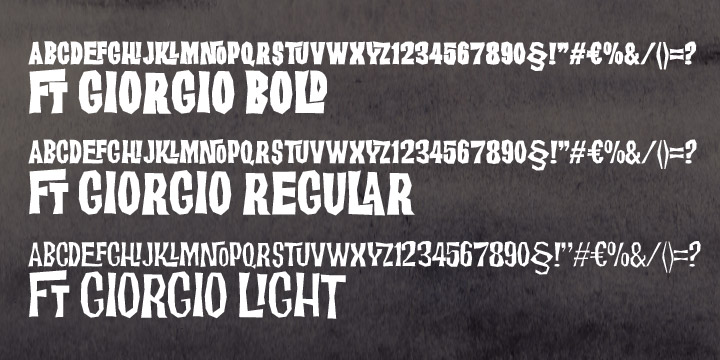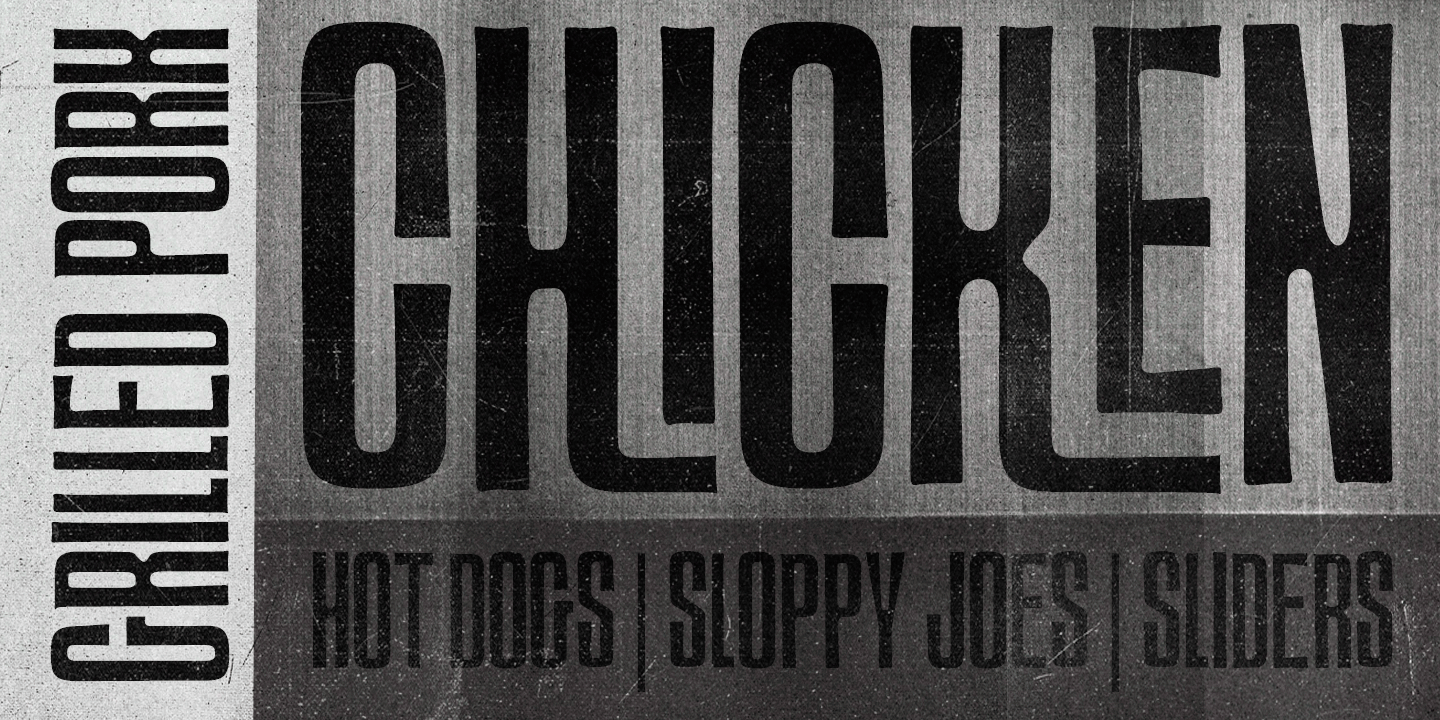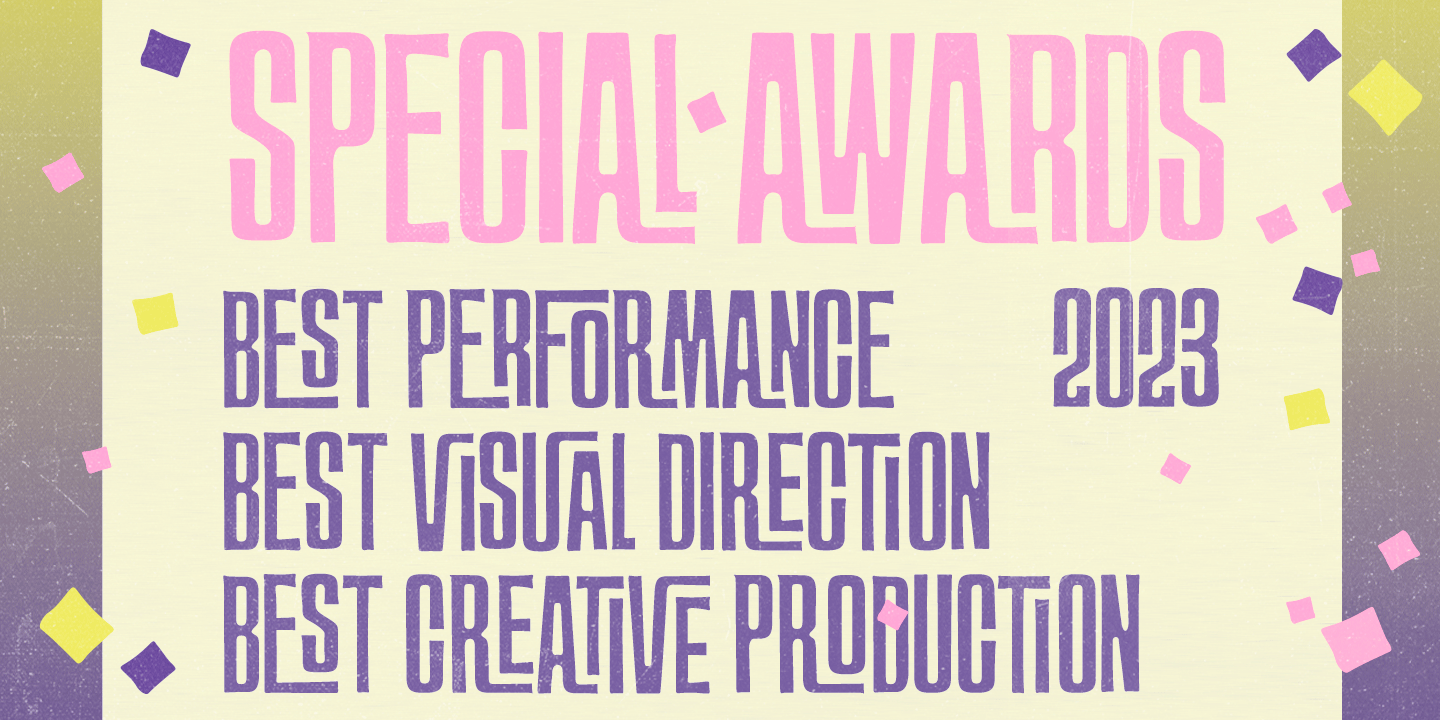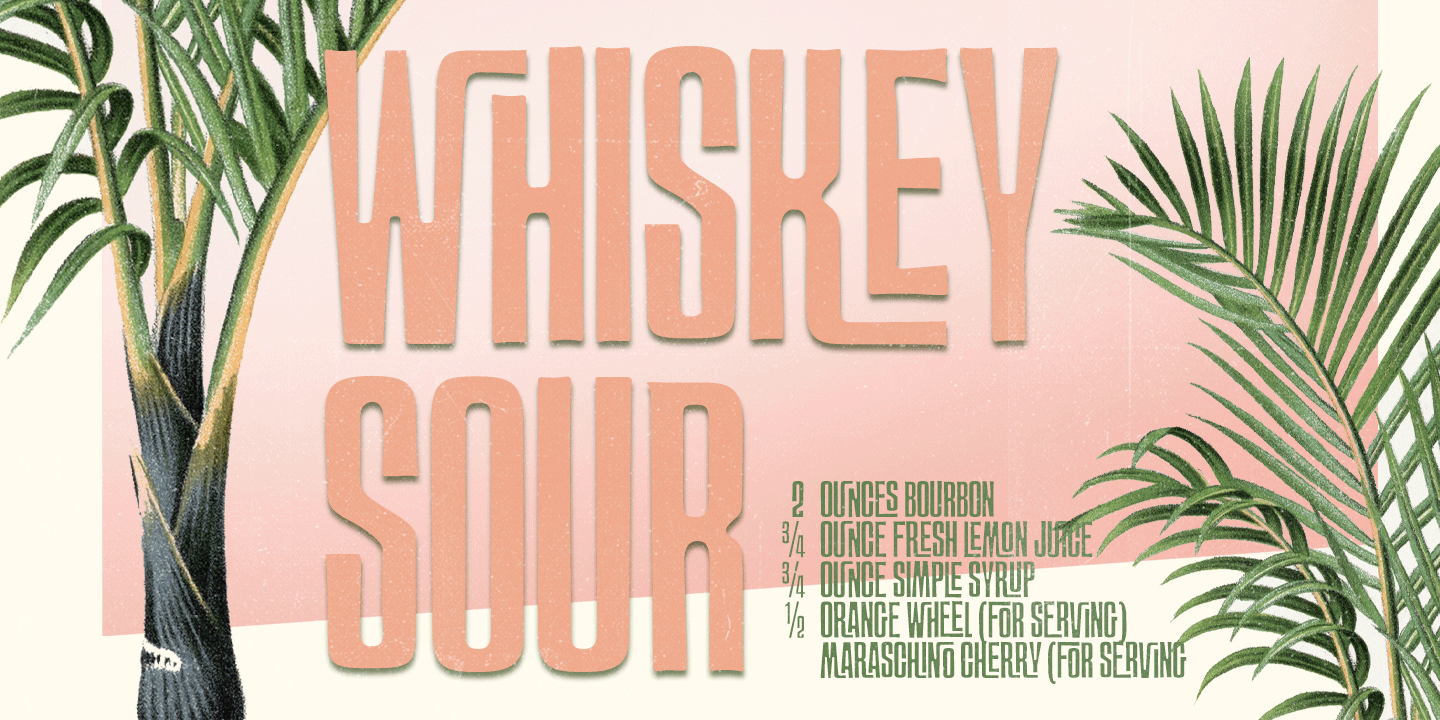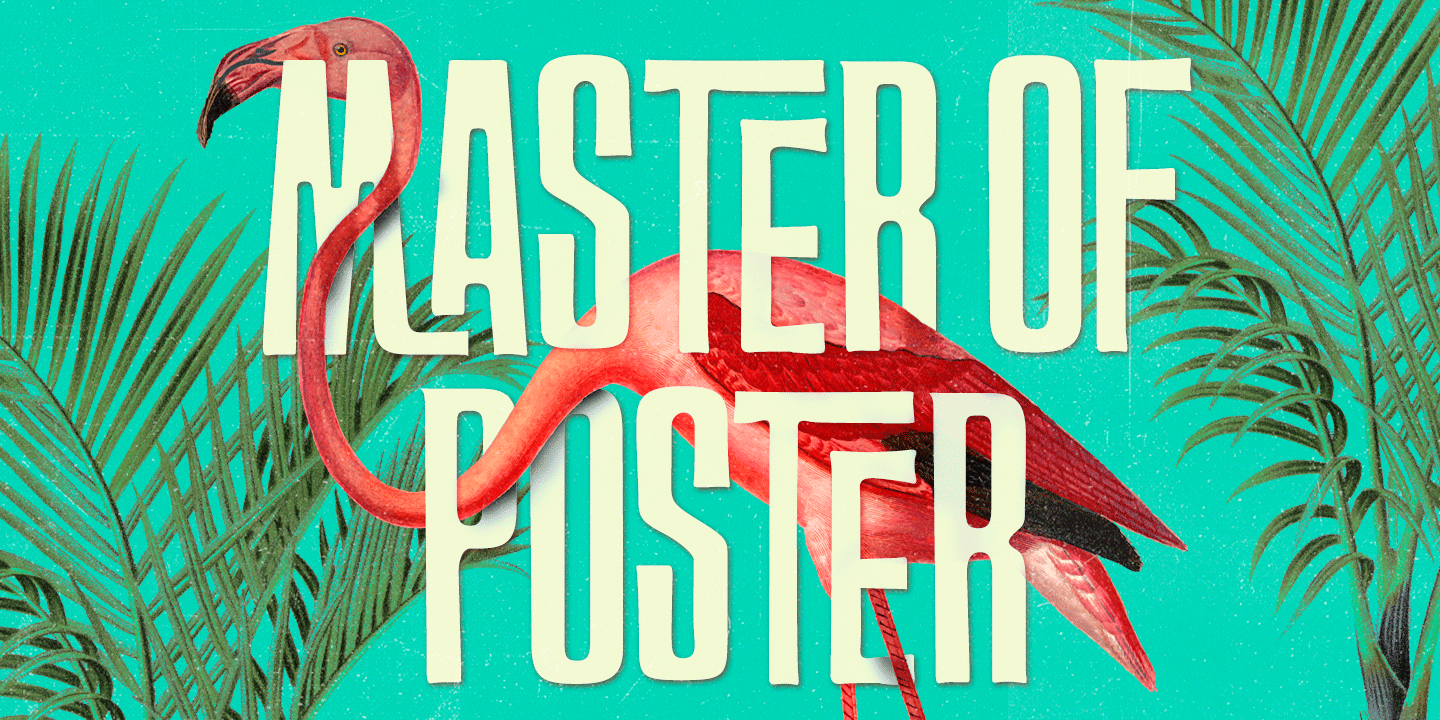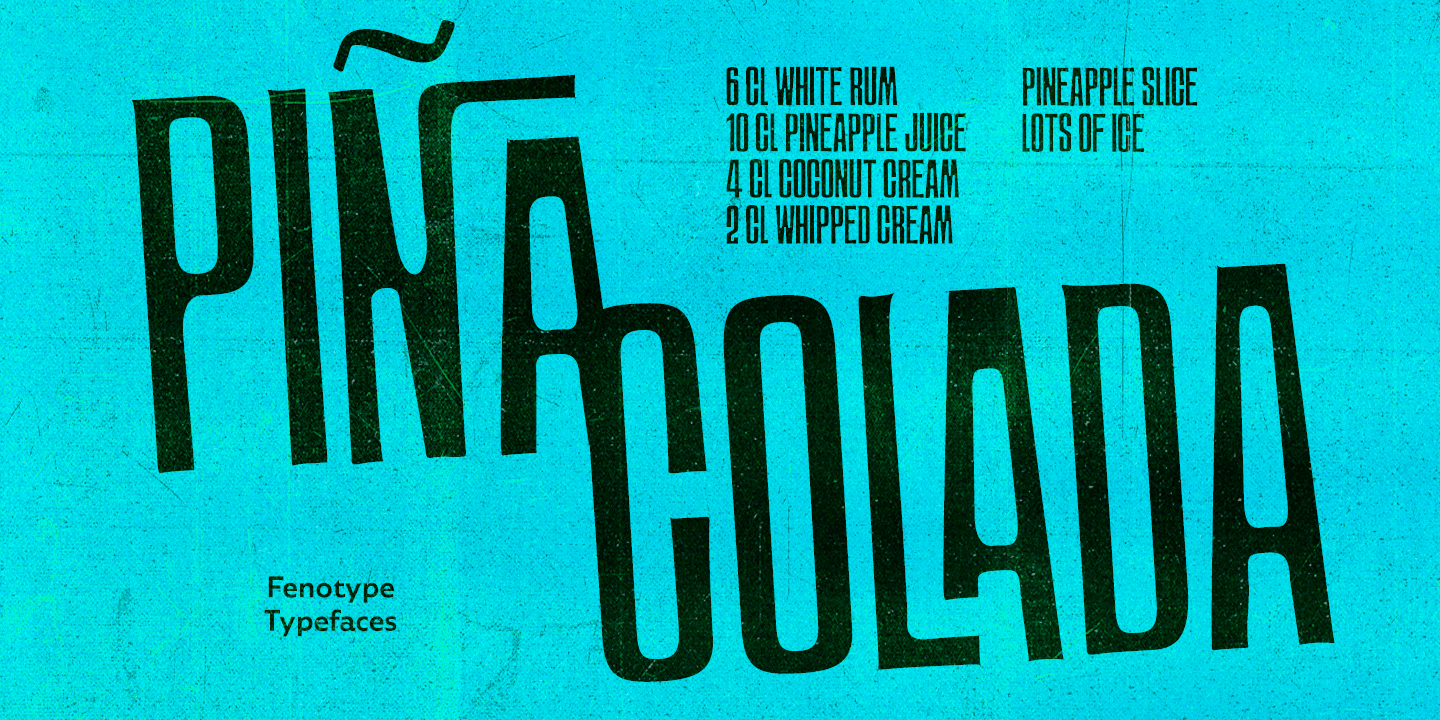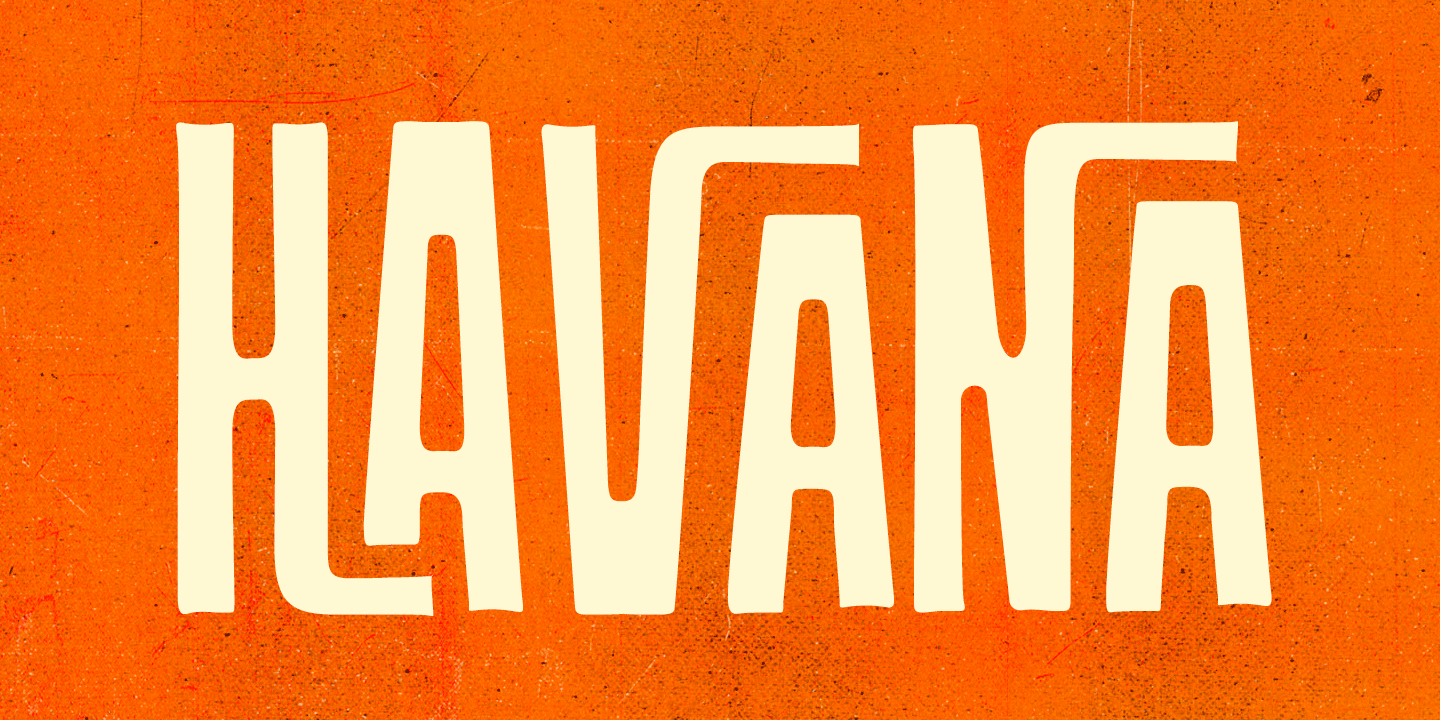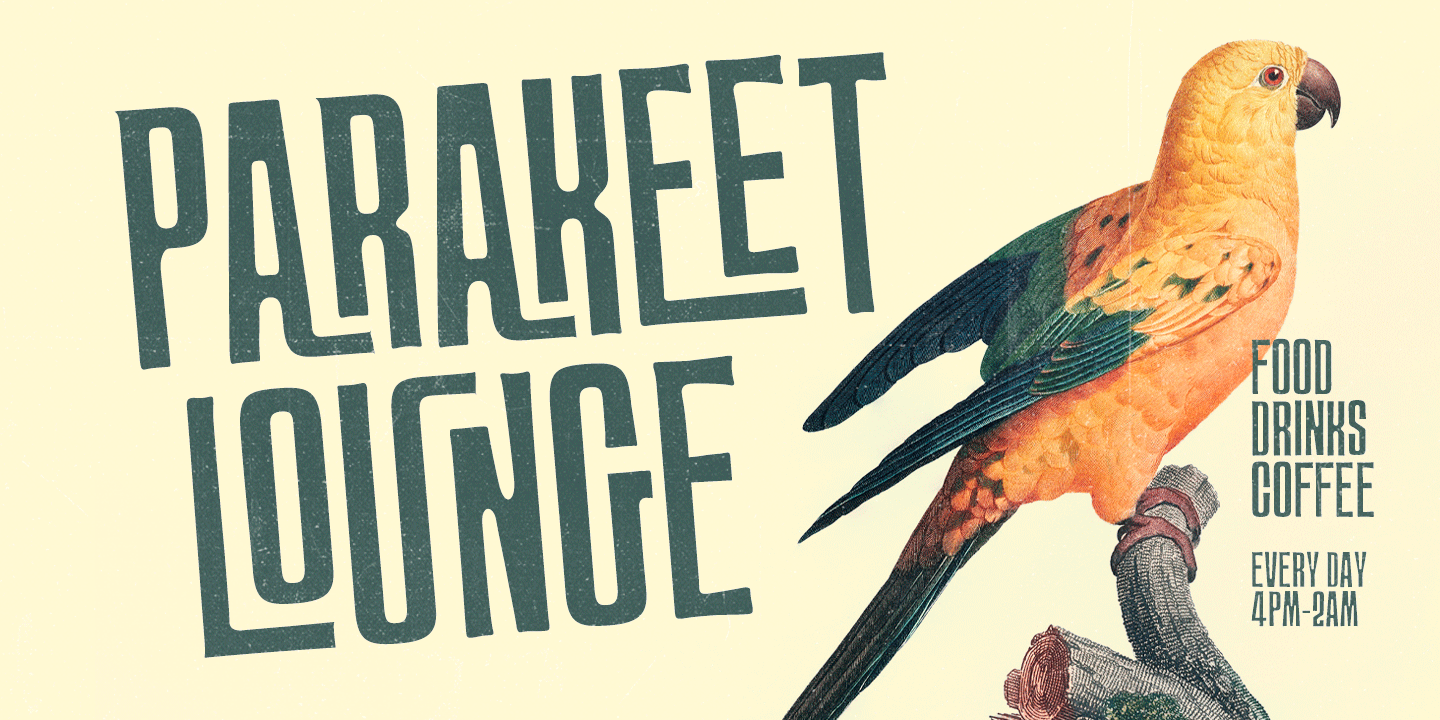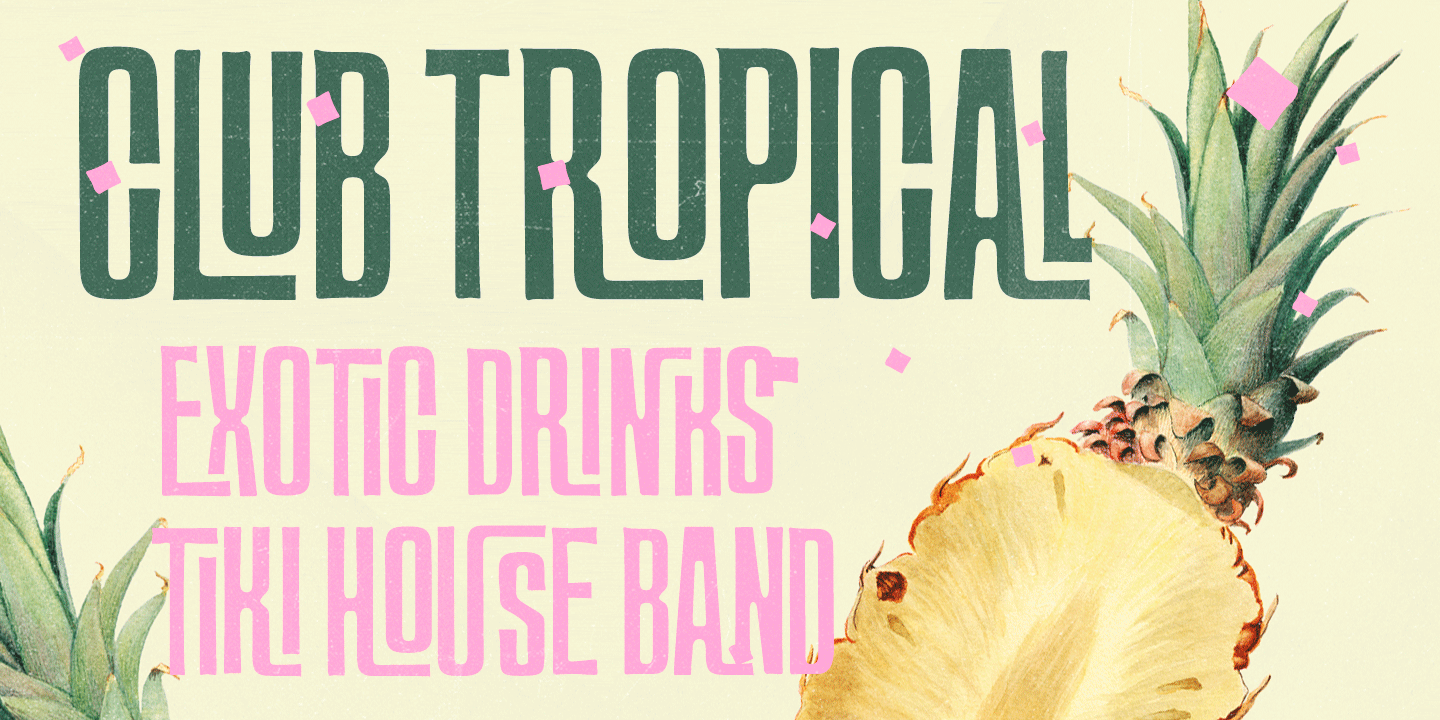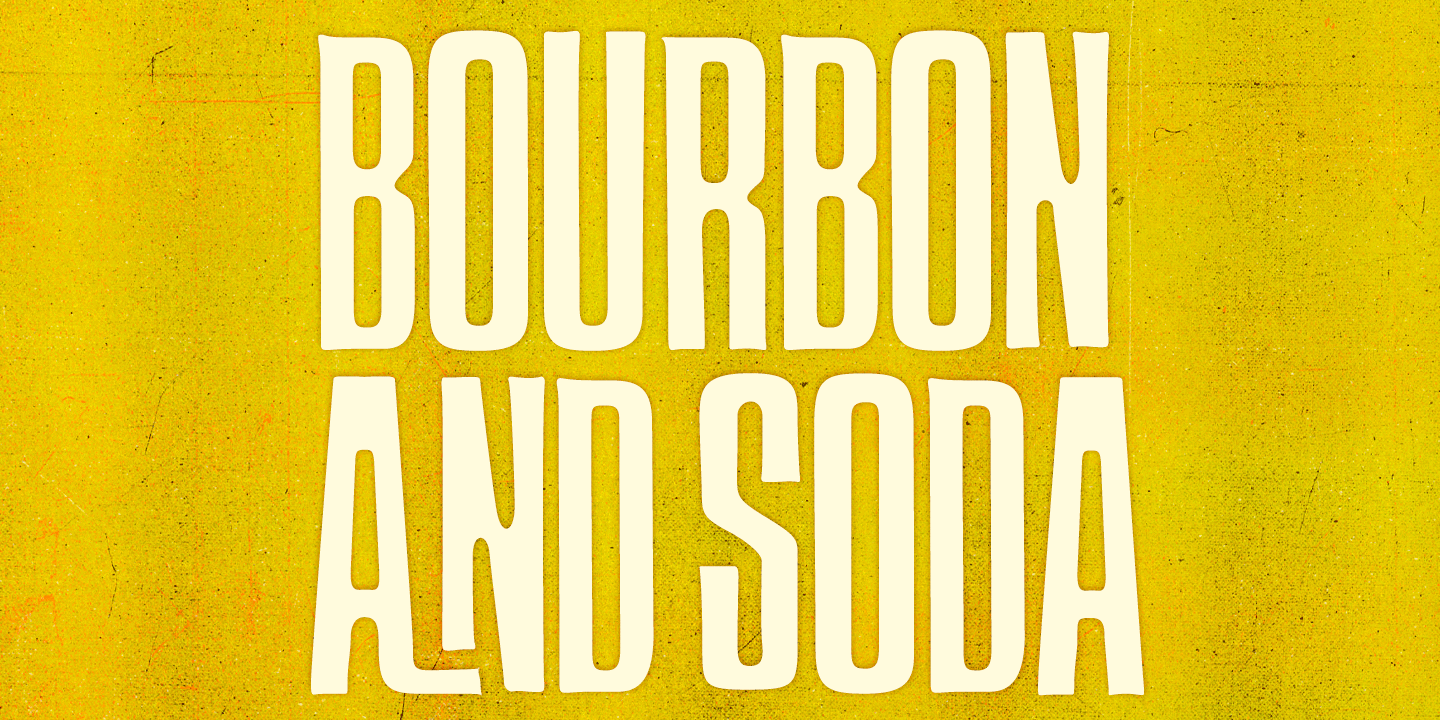
FT Giorgio Family (3 fonts)
FT Giorgio has class-based kerning and around 200 automatic interlock ligature pairs which gives your design a custom look.